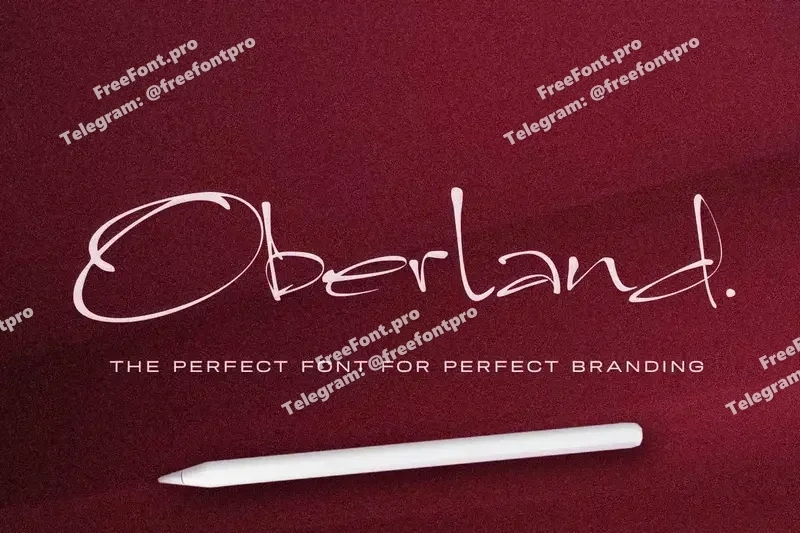
Oberland
Oberland is a typeface born from imperfection, celebrating the raw character of every single letter. Each glyph is intentionally unpolished, carrying its own rhythm, flaws, and uniqueness that demand attention and spark intrigue. The strokes feel bold and handmade, designed not to mimic perfection but to embody freedom and authenticity. On their own, the letters stand as imperfect fragments, yet when they come together as words and sentences, they align into a harmony that feels powerful, cohesive, and unforgettable. Oberland proves that perfection is not found in flawlessness, but rather in the union of imperfection — turning raw strokes into rhythm, and individuality into balance. A great choice for designers who seek originality, Oberland brings a distinctive voice to branding, logos, photography quotes, handmade products, cosmetics, boutiques, crafts, banners, book titles, and beyond. Wherever a touch of uniqueness and authenticity is needed, this typeface delivers impact and style that stand apart.